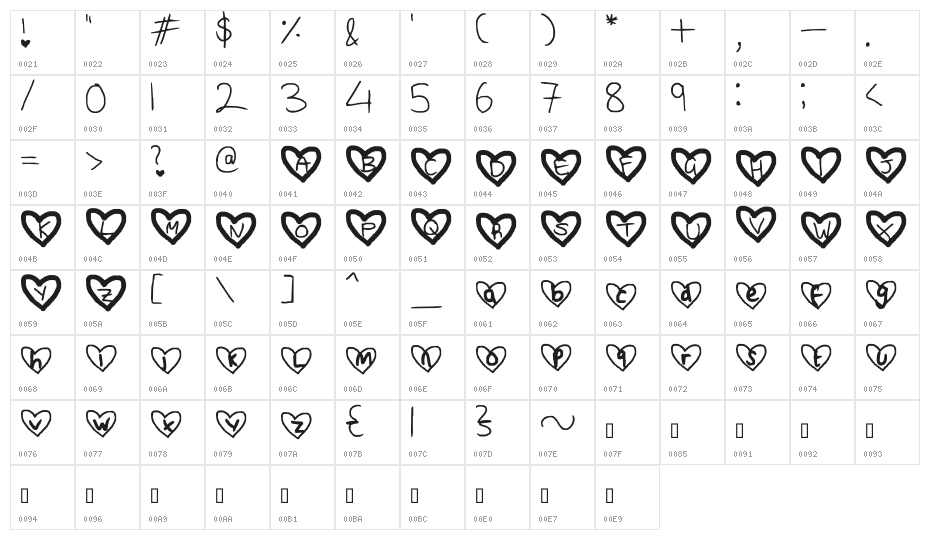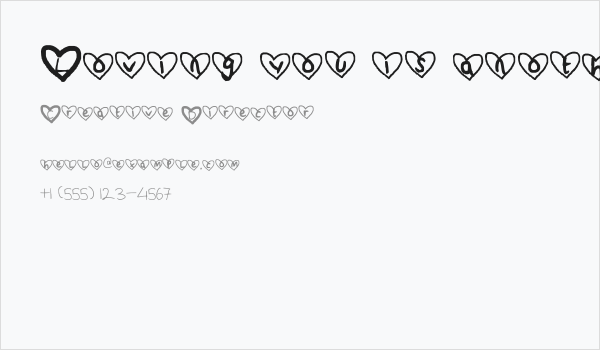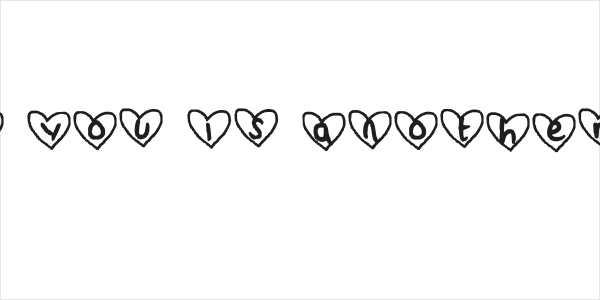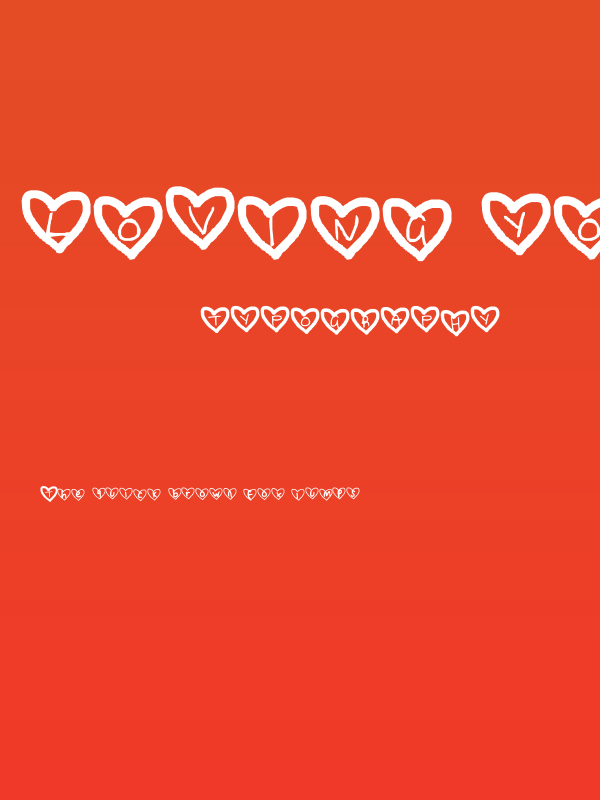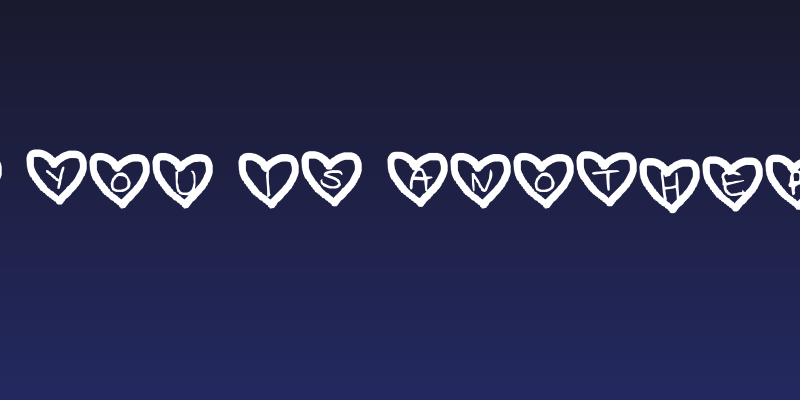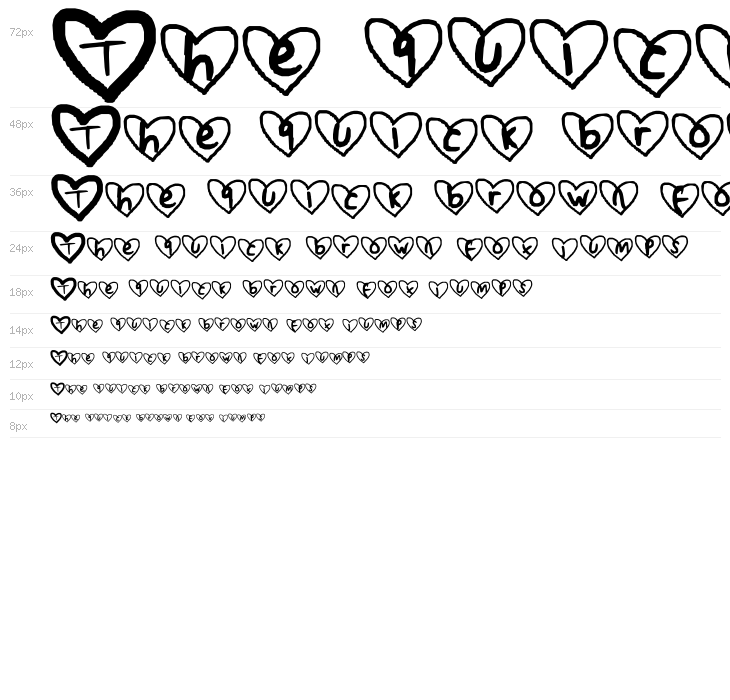
Loving you is another story. Font
Loving you is another story. Description
This playful and decorative font features each character encased within a heart shape, creating a whimsical and romantic aesthetic. The letters are bold and handwritten, with a casual, flowing style that adds a personal touch. The uppercase and lowercase letters maintain a consistent design, while the numbers and special characters are presented in a more straightforward, yet still playful manner. The overall look is charming and ideal for projects that require a touch of love and creativity.